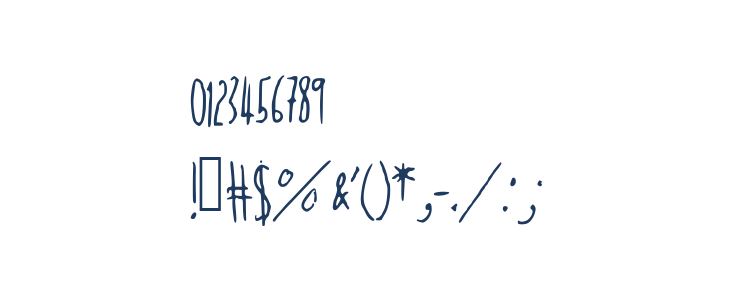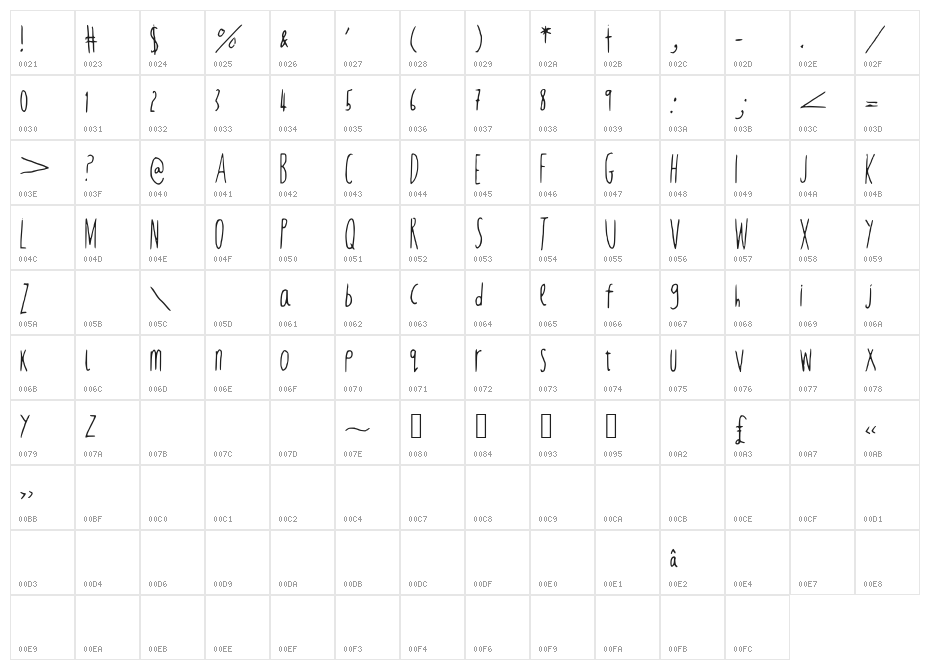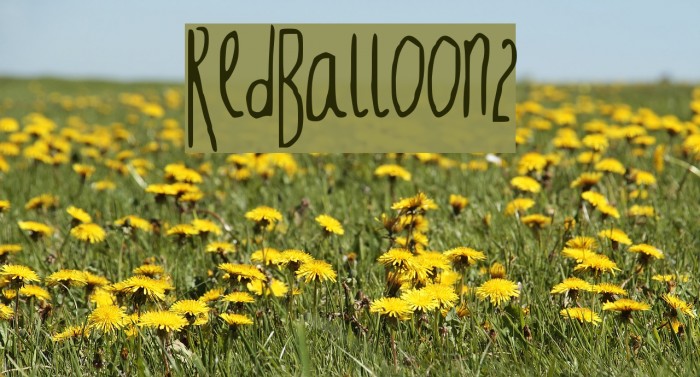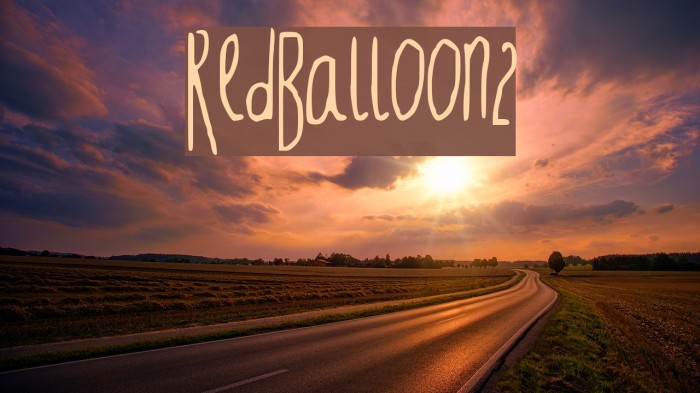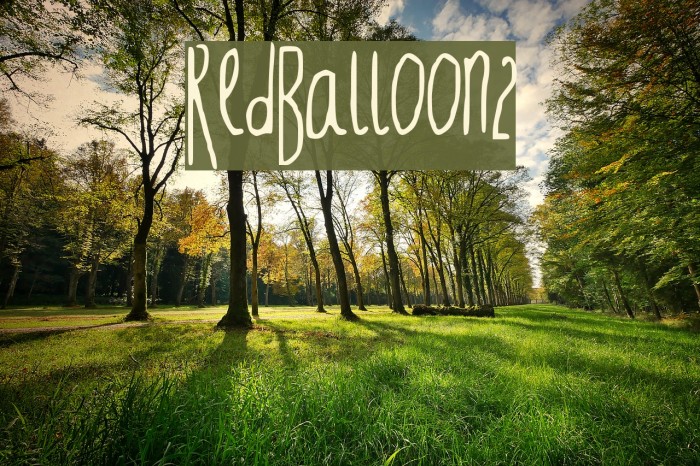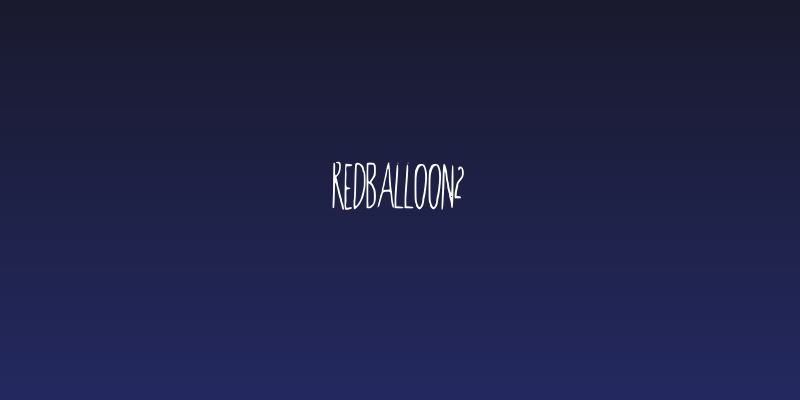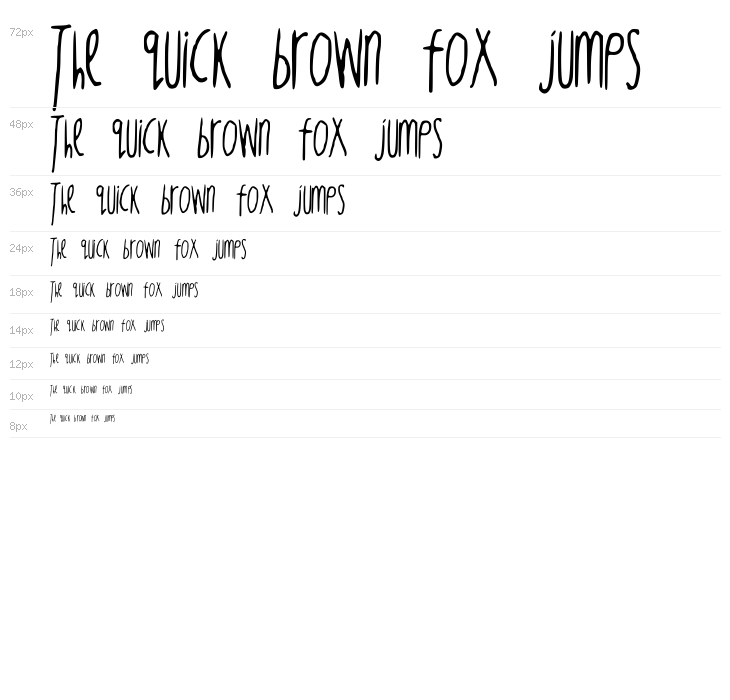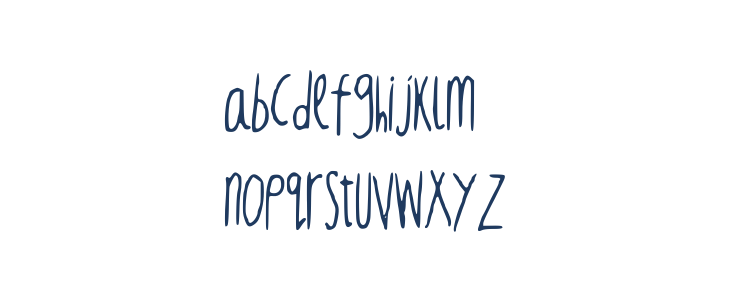
RedBalloon2 Font
RedBalloon2 Description
This font features a playful and whimsical design, characterized by its tall, narrow letters with a hand-drawn appearance. The strokes are uneven, giving it a casual and informal feel. The uppercase and lowercase letters maintain a consistent style, with slight variations in width and height that add to its charm. The numerals and special characters follow the same quirky aesthetic, making it suitable for creative and artistic projects. Its unique style is reminiscent of handwritten notes or doodles, making it ideal for designs that require a personal touch.
Use CaseHeadlines, Logos, Creative projects
Proposed ProjectsIdeal for children's books, greeting cards, playful branding, and artistic posters.